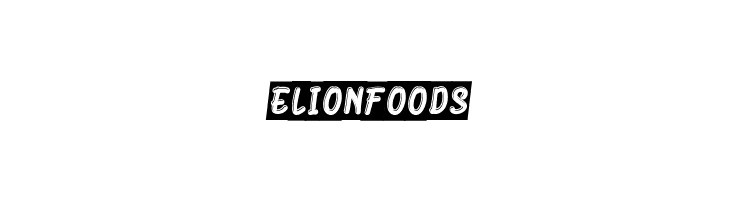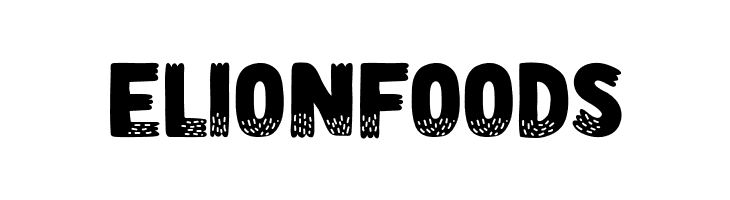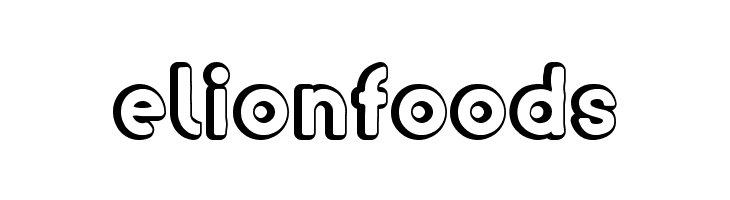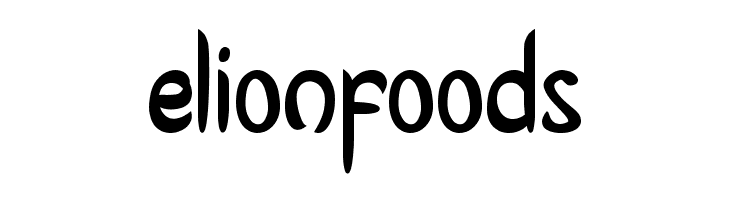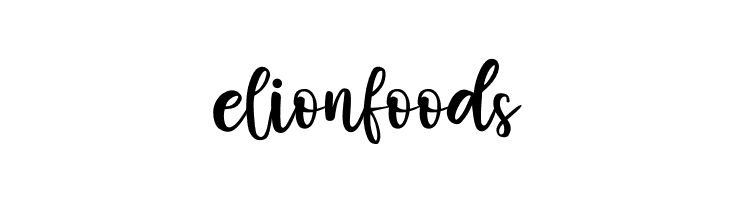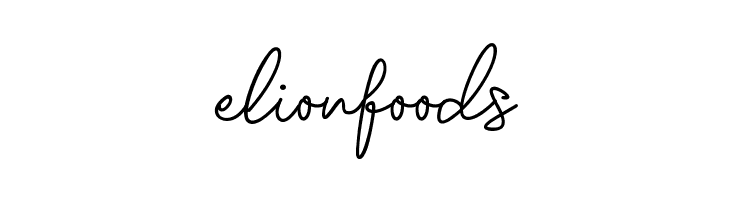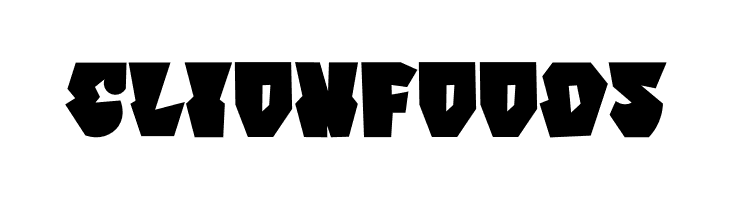
A tall, narrow, and modern font with clean lines and a cohesive style.
A playful, monster-themed font with bold, animated characters.
A bold, playful font with a hand-drawn, cursive style and rounded edges.
A playful, casual handwritten font with smooth, flowing lines.
A playful, rounded font with a whimsical, mushroom-like appearance.
A playful, bold font with rounded characters and a whimsical, hand-drawn style.
A bold, geometric font with sharp angles and a futuristic style.
A bold, geometric font with sharp angles and a modern, edgy style.
A playful, floral-accented decorative font with bold, rounded characters.
A geometric and futuristic font with clean lines and angular shapes.
A bold, expressive handwritten font with brush-like strokes.
Elegant, casual handwritten script with thin, flowing lines.
A whimsical, handwritten font with playful curves and varying stroke widths.
An elegant, flowing script font with ornate uppercase and graceful lowercase letters.
A playful, bold, hand-drawn font with a casual and friendly style.
A playful, informal handwritten font with tall, narrow letters and smooth strokes.
An elegant and flowing script font with interconnected letters and graceful curves.
A whimsical, leaf-inspired font with elegant curves and natural motifs.
Playful and casual handwritten font.
A playful, heart-embellished font with a romantic and whimsical style.
A playful, handwritten font with tall, narrow letters and a whimsical style.
A playful, casual handwritten font with bold strokes and smooth curves.
A playful, handwritten cursive font with an italicized style.
A playful, bold, and rounded script font with a casual, friendly style.
( Fonts by erlosDESIGN - Erlangga Suherman - Personal-use only. For commercial use please contact owner. )
A whimsical and elegant script font with decorative flourishes.
( Fonts by Naharstd - Nanda Hardiansyah - Personal-use only. For commercial use please contact owner. )
An elegant script font with flowing, cursive characters and graceful swashes.
( Fonts by Erik Studio - Personal-use only. For commercial use please contact owner. )
A playful, casual handwritten font with rounded, consistent strokes.
( Fonts by Rizka Prayuda - Personal-use only. For commercial use please contact owner. )
A dynamic and flowing script font with elegant, fluid strokes.
Bold, playful handwritten font.
A playful font with characters inside balloon shapes, perfect for festive designs.
A decorative font with geometric patterns and thin outlines.